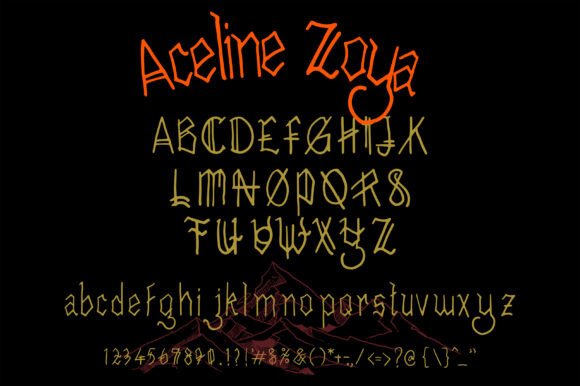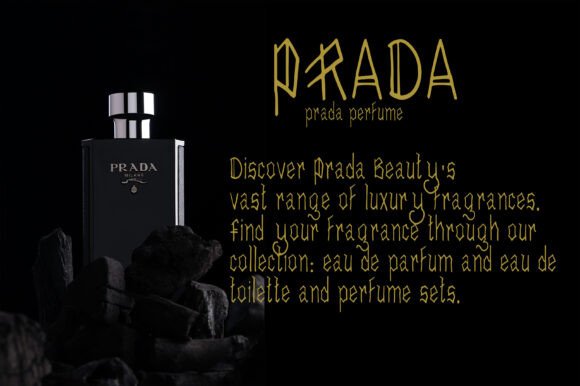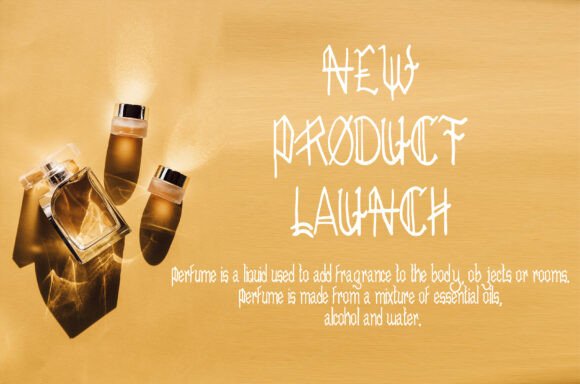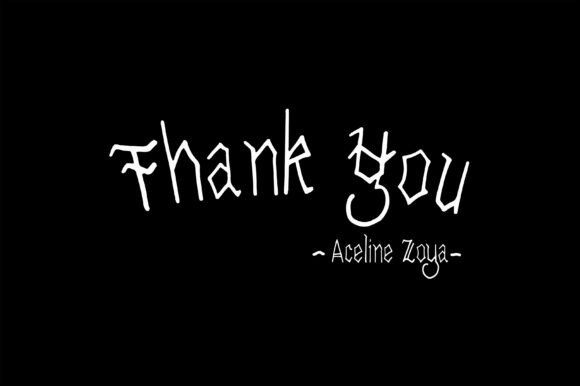
Aceline Zoya Font: Unleash the Power of Blackletter with Ancient Charm
In the world of typography, fonts play a crucial role in conveying the tone and aesthetic of a design. For designers and crafters looking to add a bold and unique touch to their projects, Aceline Zoya Font is an excellent choice. This blackletter font, infused with ancient pictograms, is sure to make a statement and leave a lasting impression.
The Unique Characteristics of Aceline Zoya Font
Aceline Zoya Font is a distinctive blackletter font that combines traditional Gothic elements with an eccentric and artistic flair. The font features intricate strokes, sharp edges, and a sense of aged parchment, giving it an authentic and vintage feel. What sets Aceline Zoya apart is its incorporation of ancient pictograms, adding an element of mystery and sophistication to the overall design.
Why Choose Aceline Zoya Font?
So, why should designers and crafters choose Aceline Zoya Font for their projects? Here are a few compelling reasons:
- Bold and Eye-Catching: Aceline Zoya Font is perfect for designs that require a bold and attention-grabbing element. Its blackletter style and unique pictograms ensure that your project stands out from the crowd.
- Versatility: This font is versatile and can be used across various design platforms, including branding, advertising, packaging, and more.
- Easy to Read: Despite its ornate and complex appearance, Aceline Zoya Font is surprisingly easy to read, making it suitable for both headlines and body text.
- High-Quality: Aceline Zoya Font is a high-quality font designed with precision and attention to detail, ensuring that it looks great in any size or format.
Aceline Zoya Font is an excellent addition to any design project that requires a touch of elegance and sophistication. Here are some project ideas where this font can shine:
- Branding and Logo Design: Use Aceline Zoya Font to create a memorable and distinctive logo that reflects your brand’s personality.
- Advertising and Marketing: Add a bold and eye-catching element to your ads and marketing materials with Aceline Zoya Font.
- Packaging Design: Use this font to create eye-catching packaging designs that stand out on store shelves.
- Stationery and Invitations: Add a touch of elegance and sophistication to your stationery, invitations, and greeting cards with Aceline Zoya Font.
Tips for Using Aceline Zoya Font
To get the most out of Aceline Zoya Font, here are some tips to keep in mind:
- Pair with Simple Fonts: Pair Aceline Zoya Font with simple and clean fonts to create a striking contrast.
- Use for Headlines: Use Aceline Zoya Font for headlines and titles to add a bold and attention-grabbing element.
Aceline Zoya Font is a unique and powerful blackletter font that adds an eccentric touch to any design project. With its ancient pictograms and bold characteristics, this font is sure to create a beautiful impression and leave a lasting impact. Whether you’re a designer or crafter, Aceline Zoya Font is an excellent choice for adding a touch of elegance and sophistication to your projects. So, add it to your collection with confidence and unleash the power of blackletter with ancient charm.